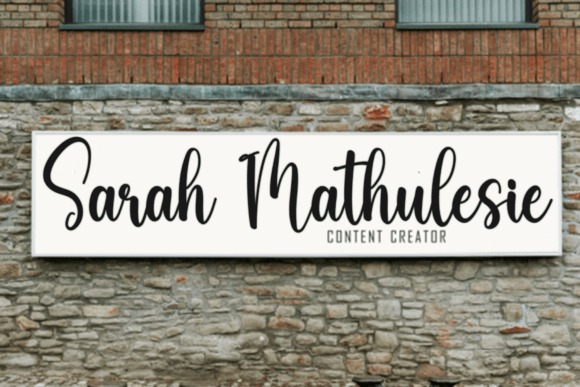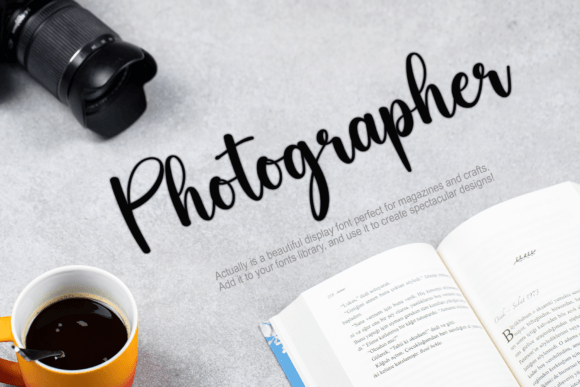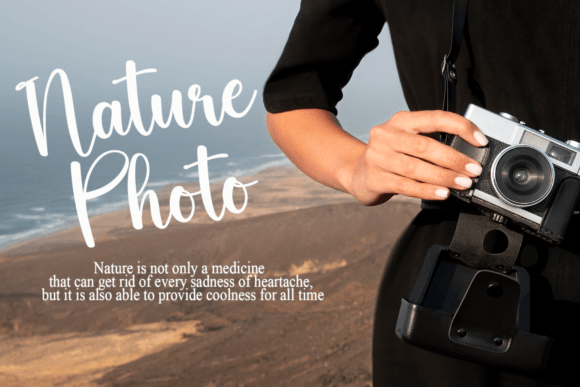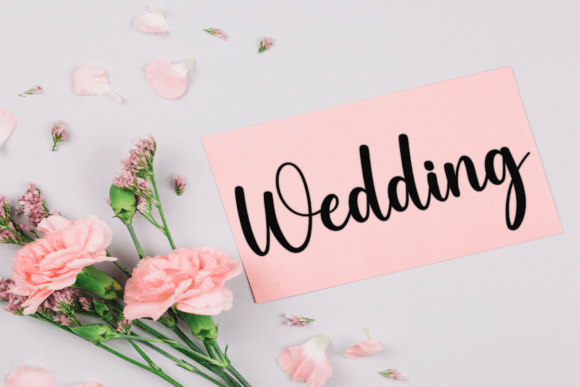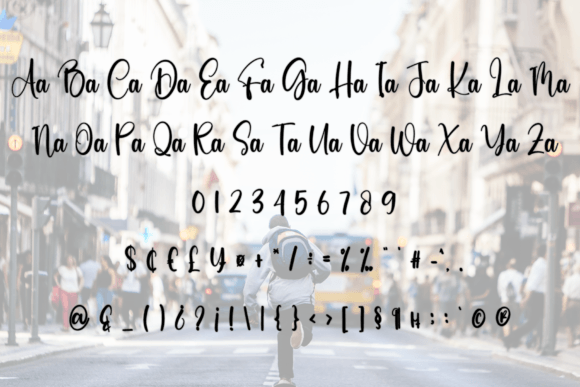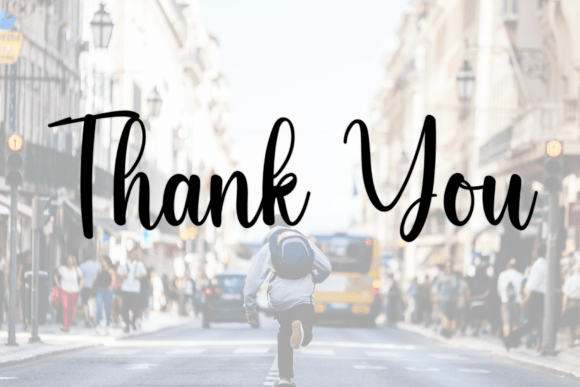
Discover the Charm of Actually Font: Elevate Your Creative Projects with a Friendly and Cute Handwritten Style
Are you on the hunt for a font that can add a personal touch to your creative projects? Look no further than Actually Font, a delightful and casual handwritten font that exudes warmth and friendliness. With its incredibly approachable feel, this font is perfect for designers and crafters seeking to infuse their work with a sense of personality and whimsy.
The Versatility of Actually Font
Whether you’re a social media enthusiast looking for fonts for Instagram or a crafty DIY enthusiast searching for calligraphy scripts, Actually Font has got you covered. Its versatility knows no bounds, making it an excellent addition to any creative arsenal. From digital projects to handmade crafts, this font can help turn any idea into a true masterpiece.
What Makes Actually Font So Special?
So, what sets Actually Font apart from other fonts out there? Here are a few reasons why this font has become a favorite among designers and crafters:
- Cute and Casual: Actually Font boasts a playful, laid-back vibe that’s perfect for projects that require a friendly and approachable tone.
- Handwritten with Love: The font’s handwritten style gives it a personal, human touch that’s hard to replicate with more formal fonts.
- Incredibly Friendly: The font’s warm and welcoming feel makes it perfect for projects that aim to connect with the audience on a personal level.
Using Actually Font for Instagram and Social Media
In today’s digital age, having a strong social media presence is crucial for designers, crafters, and businesses alike. With Actually Font, you can elevate your Instagram game and make your feed stand out from the crowd. Here are a few ideas for using Actually Font on social media:
- Quotes and Captions: Use Actually Font to add a personal touch to your quotes and captions, making them more relatable and engaging.
- Branding and Identity: Incorporate Actually Font into your branding and visual identity to create a consistent and recognizable aesthetic.
- Stories and Graphics: Add Actually Font to your stories and graphics to give them a more human and approachable feel.
Using Actually Font for DIY Projects and Crafts
Actually Font isn’t just limited to digital projects; it’s also perfect for DIY enthusiasts and crafters. Here are a few ideas for using Actually Font in your handmade crafts:
- Calligraphy and Lettering: Use Actually Font as inspiration for your calligraphy and lettering projects, adding a personal touch to your work.
- Handmade Cards and Invitations: Add Actually Font to your handmade cards and invitations to make them more special and meaningful.
- Journaling and Scrapbooking: Incorporate Actually Font into your journaling and scrapbooking projects to give them a more personal and creative feel.
In conclusion, Actually Font is a versatile and charming handwritten font that’s perfect for designers, crafters, and creatives of all kinds. With its cute and casual style, incredibly friendly feel, and versatility, this font is sure to become a staple in your creative arsenal. Whether you’re working on digital projects or handmade crafts, Actually Font is the perfect choice for adding a personal touch and turning your ideas into true works of art.